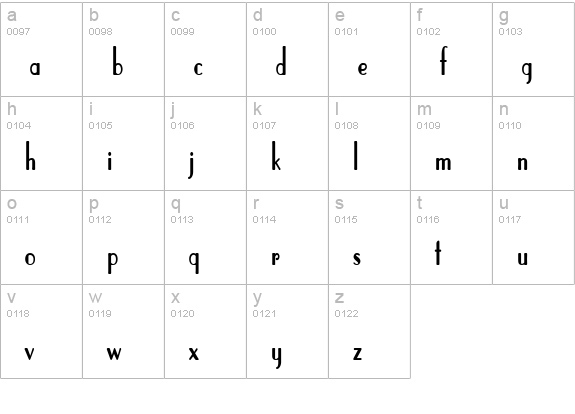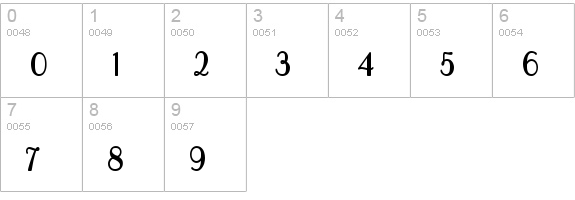
Paris Condensed Bold is a strong, high-contrast, condensed-width variant in the Paris typeface family \xE2\x80\x94 well suited to headlines, attention-grabbing titles, and strong calls-to-action.
Paris Condensed Bold is a stunning display font that exudes sophistication and elegance. Its bold and condensed design makes it perfect for headlines, logos, and any design project that requires a touch of modernity and style. This font features clean lines and sharp edges, giving it a contemporary and refined look. The bold weight adds a sense of strength and confidence to your designs, making a bold statement that is sure to capture attention. With its versatile nature, Paris Condensed Bold is suitable for a wide range of applications. Whether you are designing a magazine spread, creating a website, or crafting an eye-catching advertisement, this font will elevate your work to new heights. One of the best aspects of Paris Condensed Bold is that it is freely available to download at FontsMarket.com. This means that you can access this incredible font without any cost, making it an excellent choice for both personal and commercial projects. Downloading this font is a breeze, and once it's in your collection, you'll find yourself turning to it time and time again. Its timeless appeal and modern aesthetic make it a valuable asset for designers who want to create visually striking and memorable designs. In conclusion, Paris Condensed Bold is a must-have font for anyone looking to add a touch of sophistication and style to their designs. Its bold and condensed design, combined with its versatility and availability, makes it a valuable asset in any designer's toolkit. Don't miss out on the opportunity to download this font for free at FontsMarket.com and unlock a world of possibilities for your next design project.